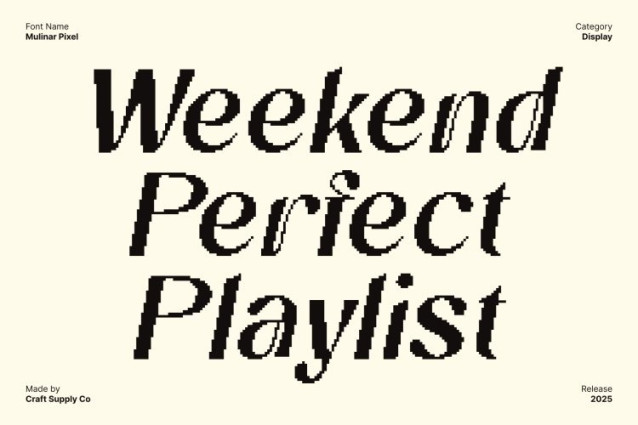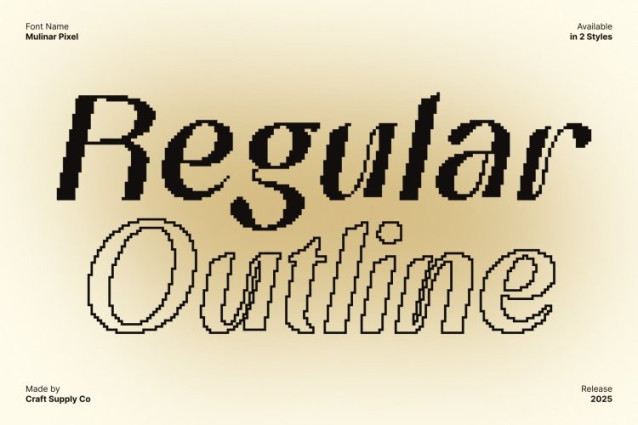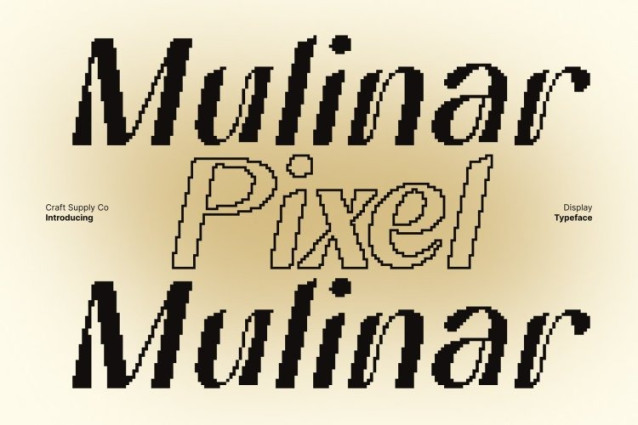
Mulinar Pixel Font
Mulinar Pixel Font This is a modern sans serif display font inspired by the graceful curves and ornamental beauty of Art Nouveau design. Its clean, contemporary lines bring sophistication and visual harmony, making it a font that is both elegant and captivating. Each character balances decorative flair with modern minimalism, resulting in a stylish and versatile typeface.
Trendy and Eye-Catching Letterforms
Designed to stand out, this font combines refined geometry with flowing shapes that draw attention. The subtle Art Nouveau influence creates a sense of artistry and sophistication, perfect for projects that demand a modern yet timeless aesthetic. The font’s distinctive forms elevate headlines, branding, and creative layouts.
Pixel Style for Digital and Creative Modernity
Enhanced with a pixel-inspired texture, this font brings a contemporary digital edge to its classic design. This pixel detailing adds a modern, tech-forward personality, making the font ideal for digital branding, websites, editorial projects, and creative campaigns.
Perfect for Digital Branding, Creative Design, and Trendy Projects
This font excels in designs that require elegance, modernity, and creativity. Use it for digital branding, social media visuals, posters, editorial layouts, or any project that aims to captivate and inspire. With its Art Nouveau charm, clean lines, and pixel-inspired details, this font delivers a perfect blend of artistry, sophistication, and contemporary digital style.